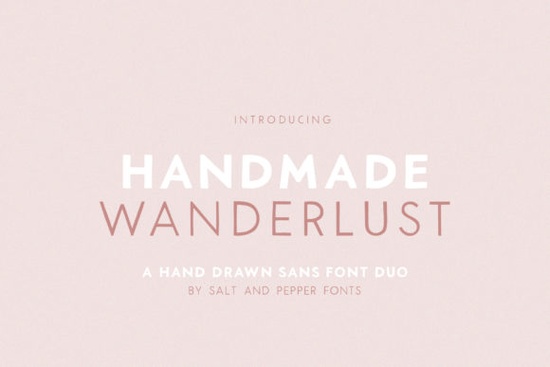
If you're looking for a friendly, hand-drawn sans serif font that works well across playful and thoughtful designs like kids’ activity sheets, boutique packaging, or whimsical social media graphics the Handmade Wanderlust Duo Font is worth your attention. It’s not overly decorative, but it carries warmth and personality thanks to its intentional contrast between thick and thin strokes. That duality makes it versatile: pair the bold weight for headlines and the light weight for body text, or use them side-by-side in logos and quotes for visual rhythm.
When does this font work best?
This duo shines where clarity meets charm. Think of projects that need to feel approachable without sacrificing readability like printable classroom resources, custom birthday invitations for toddlers, or minimalist product labels for small-batch makers. Because it’s sans serif and hand-crafted (not digitally uniform), it avoids the stiffness of many system fonts while staying legible at smaller sizes. It’s also a solid pick for SVG-based cut files used with Cricut or Silhouette machines especially when layered or outlined for vinyl decals or iron-on transfers.
Designers who’ve used Handmade Wanderlust Duo Font often mention how smoothly it integrates into mixed-font layouts. For example, pairing it with a gentle serif like English Meadow gives balance lightness with structure, informality with elegance. In fact, if you enjoy the relaxed vibe of English Meadow Font, you’ll likely appreciate how Handmade Wanderlust Duo complements it in branding kits or seasonal collections.
Who uses it and why?
- Crafters and educators choose it for printable games, flashcards, and classroom posters because the letterforms are easy to trace and recognize even for early readers.
- Print-on-demand sellers use it on mugs, tote bags, and journals where subtle texture matters more than sharp precision; the handmade quality reads as intentional, not imperfect.
- Small business owners apply it to ingredient labels, bakery tags, or subscription box inserts where friendliness supports brand voice without leaning into cutesy overkill.
- Digital planners and Notion template creators rely on its dual weights to distinguish headers from notes without needing extra fonts or complex formatting.
It’s not meant for dense paragraphs or formal reports. But for short-form, emotionally resonant text yes, it fits. And unlike some “handwritten” fonts that feel rushed or inconsistent, Handmade Wanderlust Duo keeps spacing even and proportions balanced, so your designs look considered, not casual.
How does it compare to similar options?
Many sans serif fonts labeled “handmade” lean too far into irregularity, making alignment tricky or kerning unpredictable. This one walks the line thoughtfully: the shapes are organic, but the baseline and x-height stay reliable. If you’ve tried other playful sans fonts and found them hard to scale or pair, this duo may feel like a relief it’s got enough character to stand out, but enough discipline to play well with others.
For contrast, you might also explore Handmade Wanderlust Duo Font alongside more structured options like Montserrat or Nunito but keep in mind its strength lies in softness, not neutrality. Use it when you want your typography to quietly say, “This was made with care.”
- Test both weights together first try setting a headline in bold and subhead in light using the same font family. Adjust tracking slightly (+10–20) for light text to avoid crowding.
- On Cricut Design Space, convert text to outlines before uploading if you plan to weld or slice letters this preserves the intended stroke contrast.
- For screen use (like Instagram Stories), stick to sizes 24pt and up for the light weight smaller sizes can blur on lower-res displays.
If you’re building a cohesive visual identity or just need one dependable, expressive font for your next craft project Handmade Wanderlust Duo Font is a low-risk, high-flexibility choice. It won’t solve every design problem, but it handles its niche with quiet confidence.